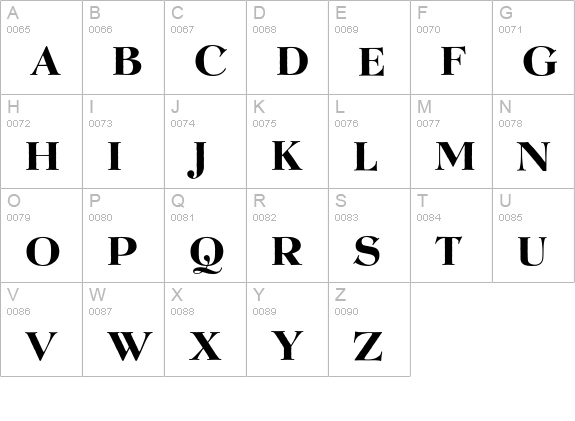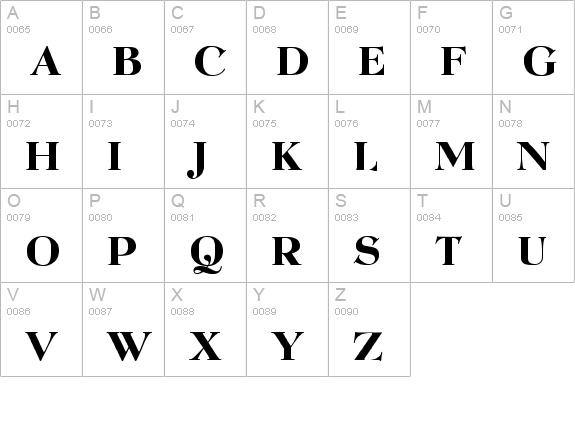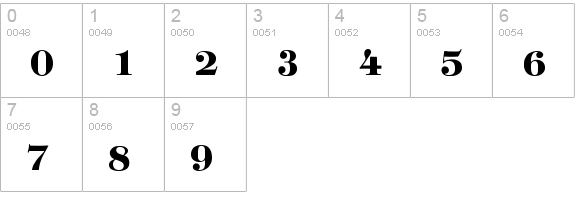
LucianBQ-Medium is a balanced, medium-weight variant in the LucianBQ typeface family \xE2\x80\x94 well suited to sub-headlines, navigation, and balanced editorial work.
LucianBQ-Medium is a versatile and elegant font that strikes the perfect balance between modernity and sophistication. Its clean lines and subtle curves make it ideal for a wide range of design projects, from branding to editorial layouts. The medium weight of this font provides a strong and impactful presence without being too heavy or cumbersome. What sets LucianBQ-Medium apart is that it is completely free to download at FontsMarket.com, making it accessible to all designers and creatives looking to elevate their work with a high-quality typeface. Whether you're working on a website, poster, or packaging design, LucianBQ-Medium is sure to bring a touch of refinement and style to your project.